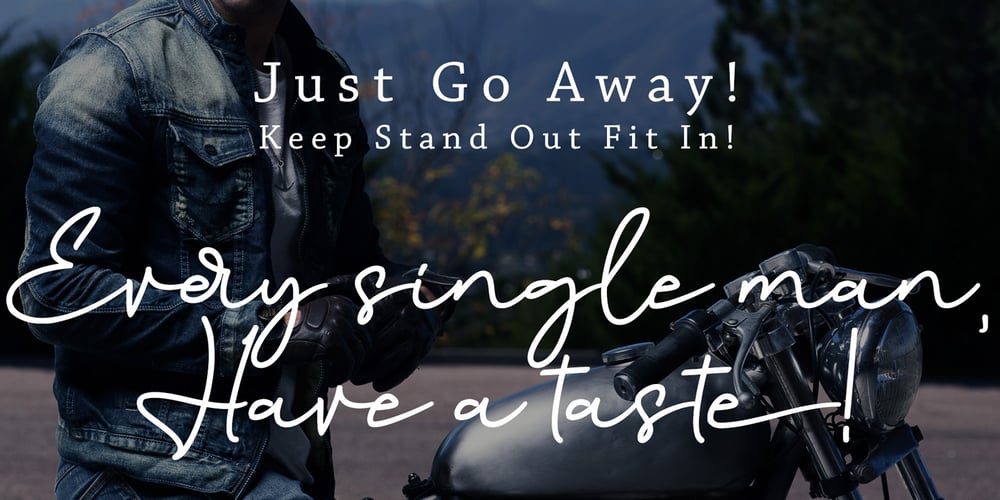
Anything Okay Font Family was designed by Alde Saputro and published by Aldedesign. Anything Okay contains 2 styles and family package options. Anything Okay is a simple, yet classy signature typeface. It includes beautiful swashes, that will add an organic feel to any design project.